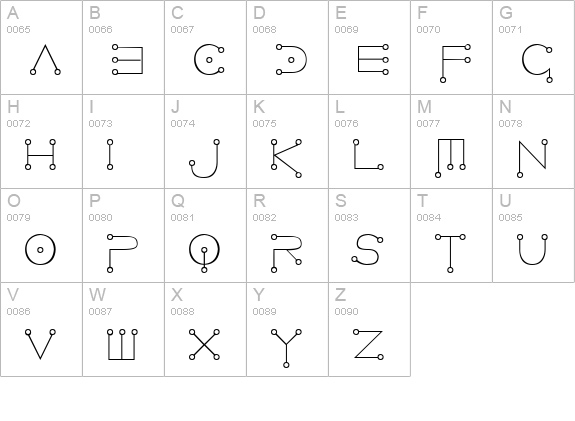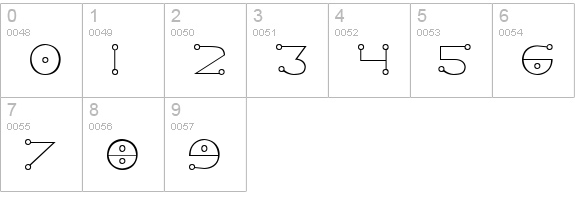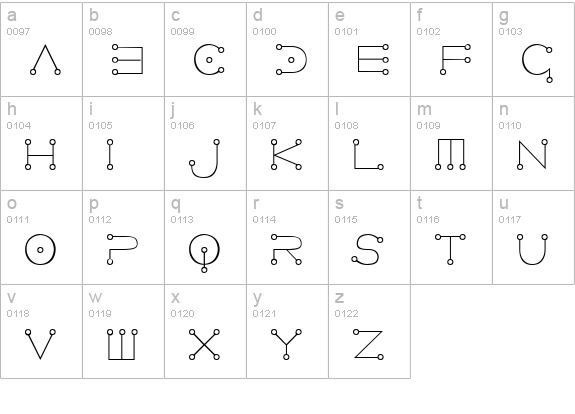
Celestial Normal Font Details
Celestial Normal is the standard, neutral variant in the Celestial typeface family \xE2\x80\x94 well suited to general body text, paragraphs, and standard typographic work.
Celestial Normal font is a captivating and elegant typeface that exudes a sense of serenity and sophistication. Its clean lines and graceful curves make it a versatile choice for a wide range of design projects, from branding to editorial design. The Celestial Normal font features a classic yet modern style that effortlessly conveys a sense of timeless beauty. This exquisite font is not only visually appealing but also highly legible, making it perfect for both print and digital applications. Whether you're designing a logo, creating a poster, or working on a website, Celestial Normal font will add a touch of refinement to your project. What's even better is that Celestial Normal font is available for free download at FontsMarket.com. So go ahead and elevate your designs with this stunning typeface today!